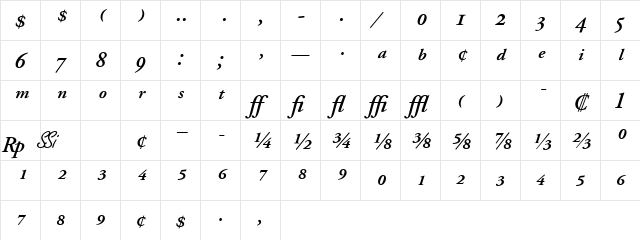
Garamond Pro SSi Semi Bold Italic
Design Context for Garamond Pro SSi Typeface
Garamond Pro SSi takes a measured approach to typography — its balanced proportions and neutral character make it a reliable workhorse for both digital and print work. The slanted form adds forward momentum and visual energy. The heavy weight commands attention and anchors typographic hierarchies.
Pro Tip: Use Garamond Pro SSi for emphasis, pull quotes, and subheadings where its slanted energy can add rhythm to the layout.